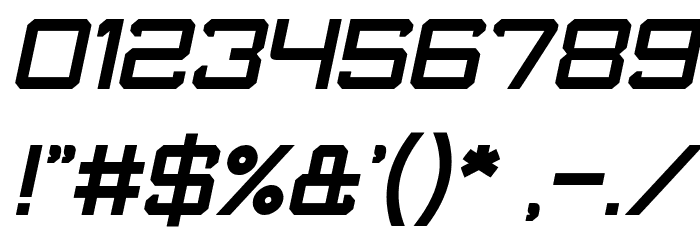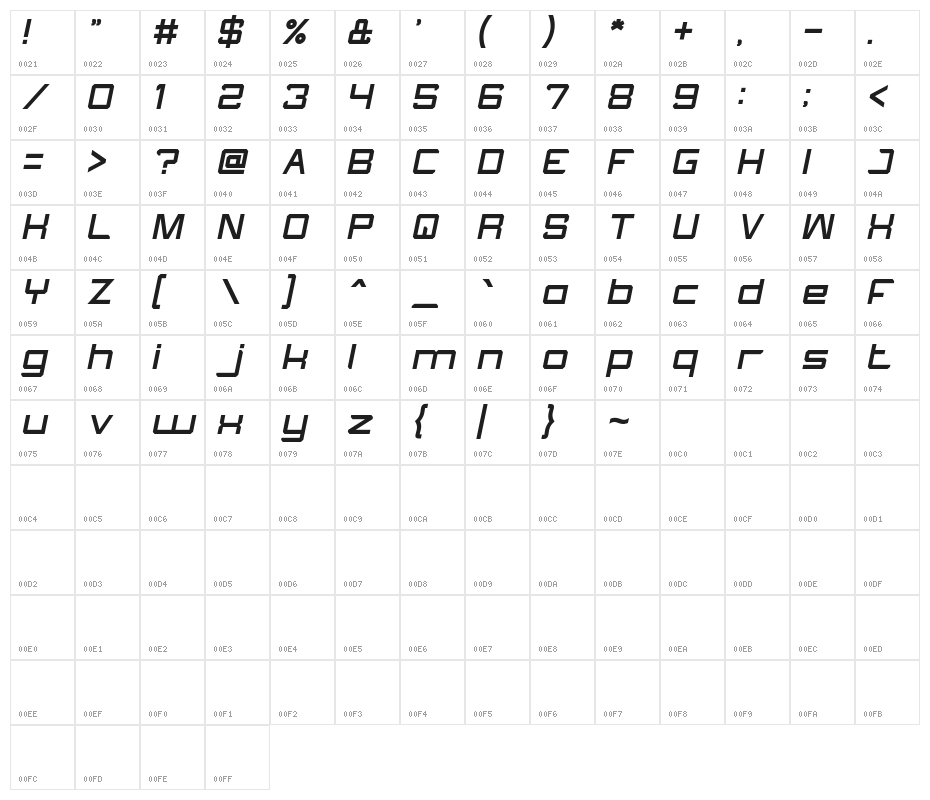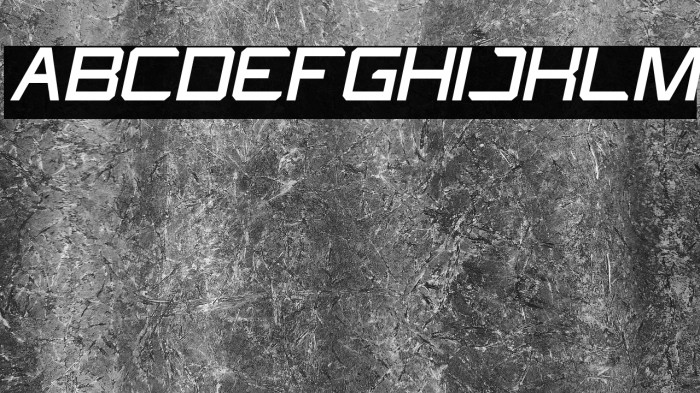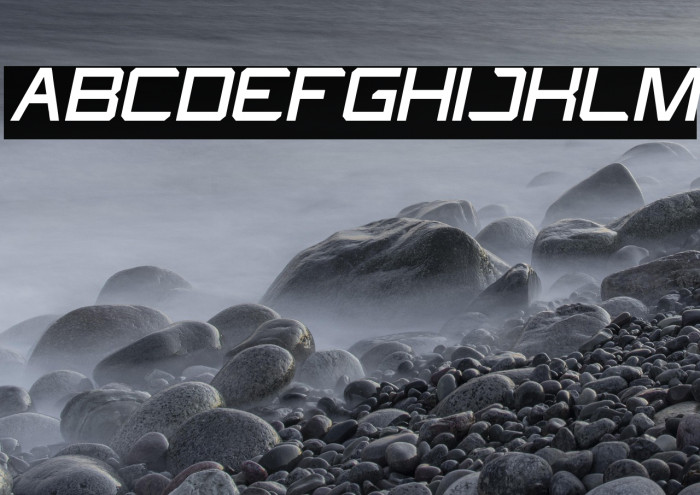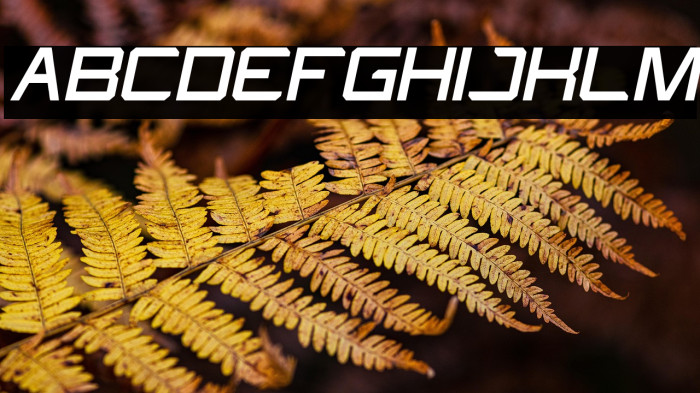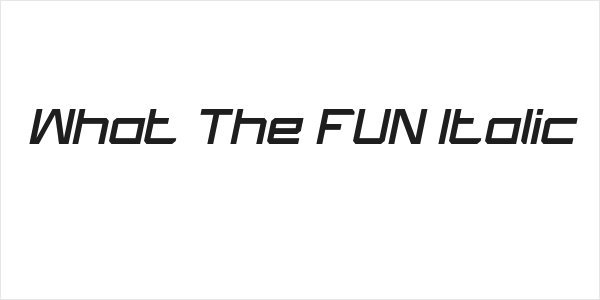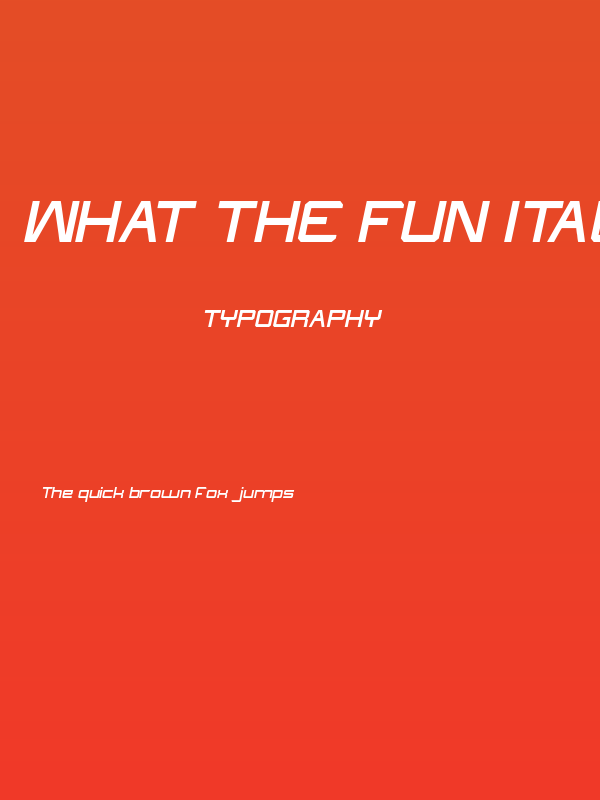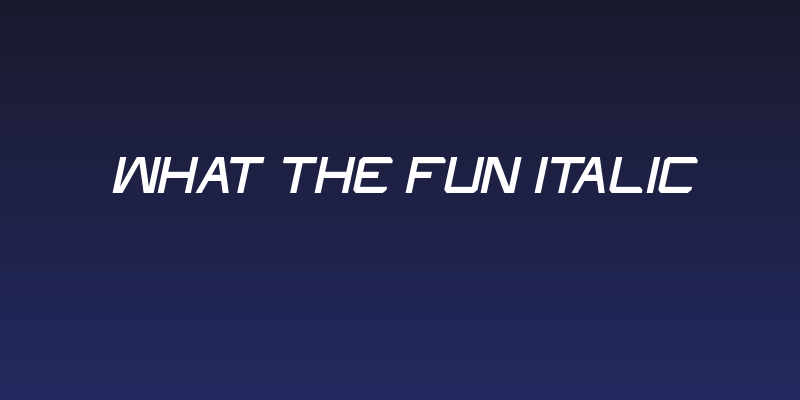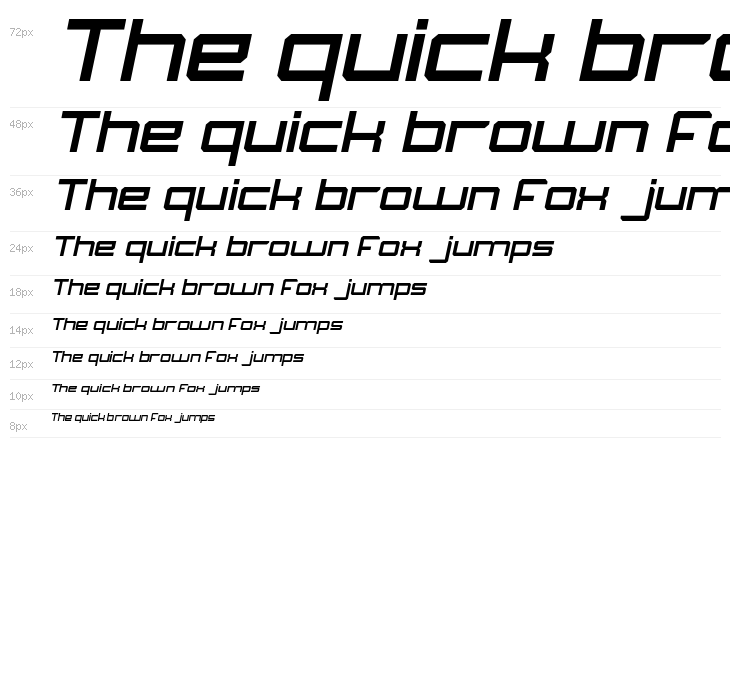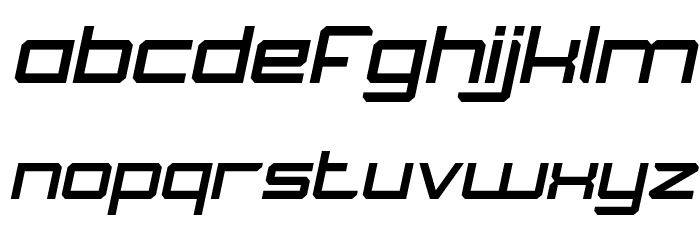
What The FUN Italic Font
What The FUN Italic Description
This font features a modern, italicized style with a sleek, angular design. The characters are slightly slanted, giving a dynamic and forward-moving appearance. The uppercase and lowercase letters maintain a consistent geometric structure, with sharp edges and clean lines. The numerals and special characters follow the same design principles, ensuring uniformity across all glyphs. The font's overall aesthetic is futuristic and tech-inspired, making it suitable for contemporary digital projects.
| Proposed Projects | Ideal for tech branding, digital interfaces, video game titles, and futuristic-themed designs. |